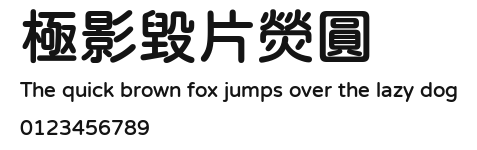
極影毀片熒圓 Preview
About 極影毀片熒圓.ttf
極影毀片熒圓.ttf is a modern, elegant sans-serif font designed for ultimate readability and visual harmony. Perfect for branding, headlines, web design, and print materials.